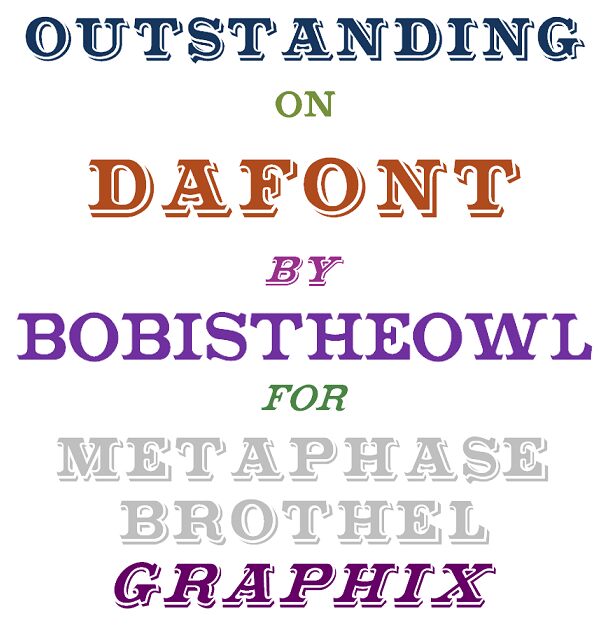
Outstanding from Big Vintage Letters, digitized by bobistheowl for Metaphase Brothel Graphix in 2012, is a free Western display font. Broad, dark capitals combine hefty slab serifs with split strokes, pointed spurs, and irregular inset highlights that recall carved and painted frontier signage.
Old West imagery gives rodeo posters an immediate setting. The lettering also suits craft beer packaging and Western-themed game artwork, especially when the decorative cuts can echo wood engraving, tooled leather, or vintage sign painting. For rustic food brands or heritage-minded venues, it can turn a name into a ready-made storefront emblem with unmistakable Old West character.
Outstanding was digitized by Bob as the Owl for Metaphase Brothel Graphix in 2012. It is a free Western display font.
The outlines were processed by hand.